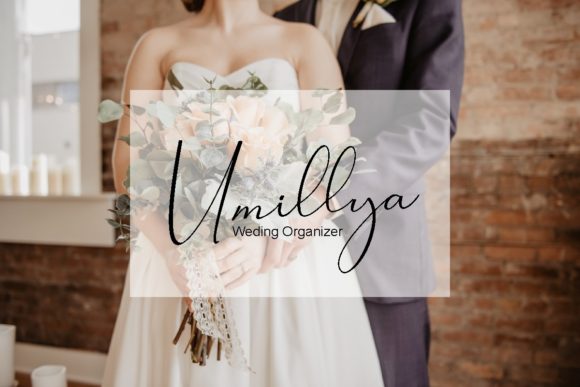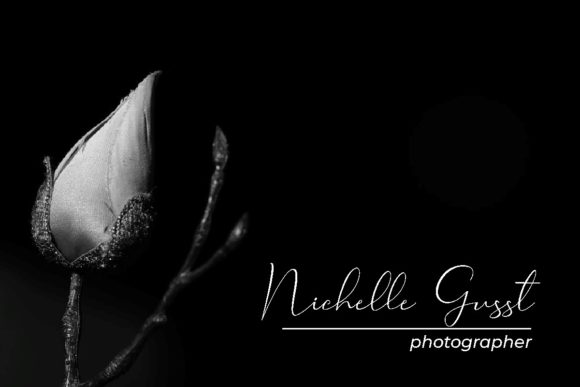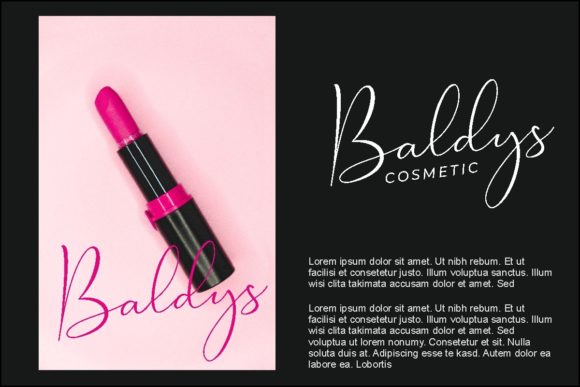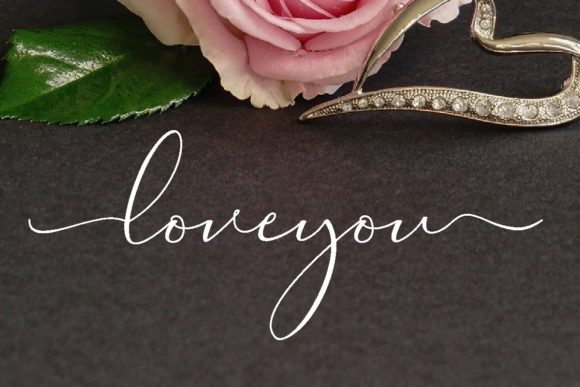
The Autography Font: A Designer’s Dream Come True
I’ll never forget the time I was working on a greeting card project, searching for the perfect handwritten font to bring my design to life. My client wanted something elegant, yet playful, and I was determined to deliver. That’s when I stumbled upon the Autography font, and it was love at first sight! 💕
This enchanting handwritten font has a wide spectrum of applications, ranging from greeting cards to headlines, and I’m excited to share its features and versatility with you.
What I Love About Autography Font
Here’s what makes Autography font a standout in my book:
• ✨ PUA encoded: Easy access to all glyphs and swashes, making it a breeze to customize your designs.
• ✅ Versatile script font: Perfect for a wide range of projects, from formal to informal.
• 💫 Handwritten charm: Adds a personal touch to your designs, making them more relatable and engaging.
• 📚 Wide range of applications: Use it for greeting cards, headlines, posters, and more!
While Autography font is amazing, there are a few things to keep in mind:
• 🤔 Learning curve: With so many glyphs and swashes available, it may take some time to get familiar with the font’s features.
• ⚠️ Overusing swashes: Be mindful of overusing swashes, as it can make your design look cluttered.
Autography font was designed with inspiration from classic handwritten scripts and a touch of modern elegance. The designer aimed to create a versatile font that would bring a personal touch to various design projects.
What is PUA encoding? PUA (Private Use Area) encoding allows for easy access to glyphs and swashes, making it simple to customize your designs.
Is Autography font suitable for body text? While Autography font is beautiful, it’s best suited for headlines, titles, and short paragraphs due to its script nature.